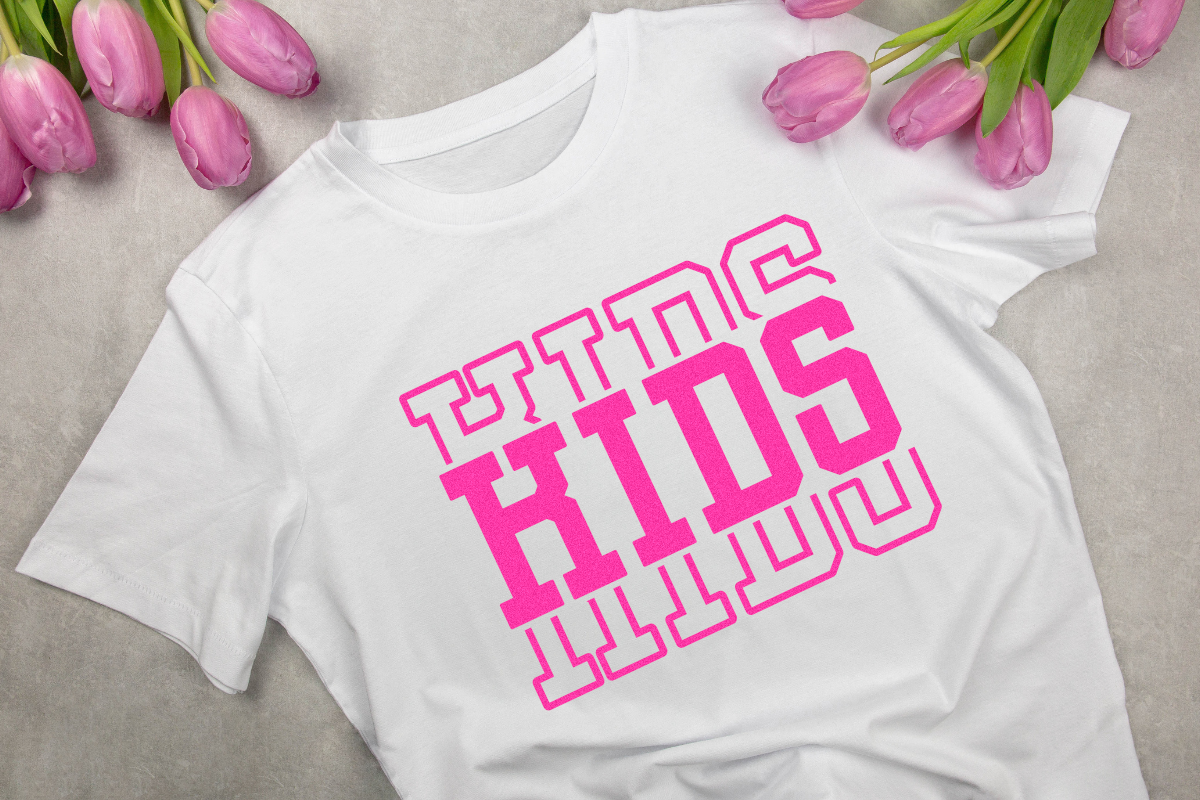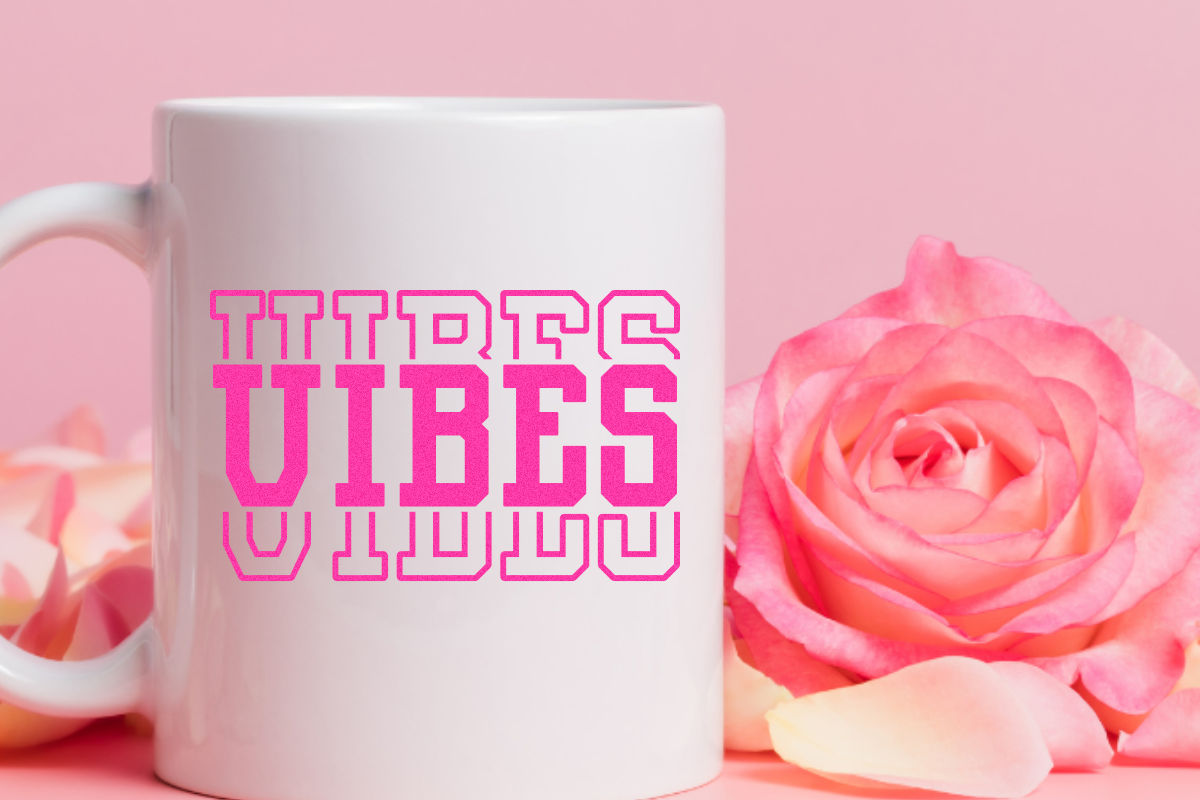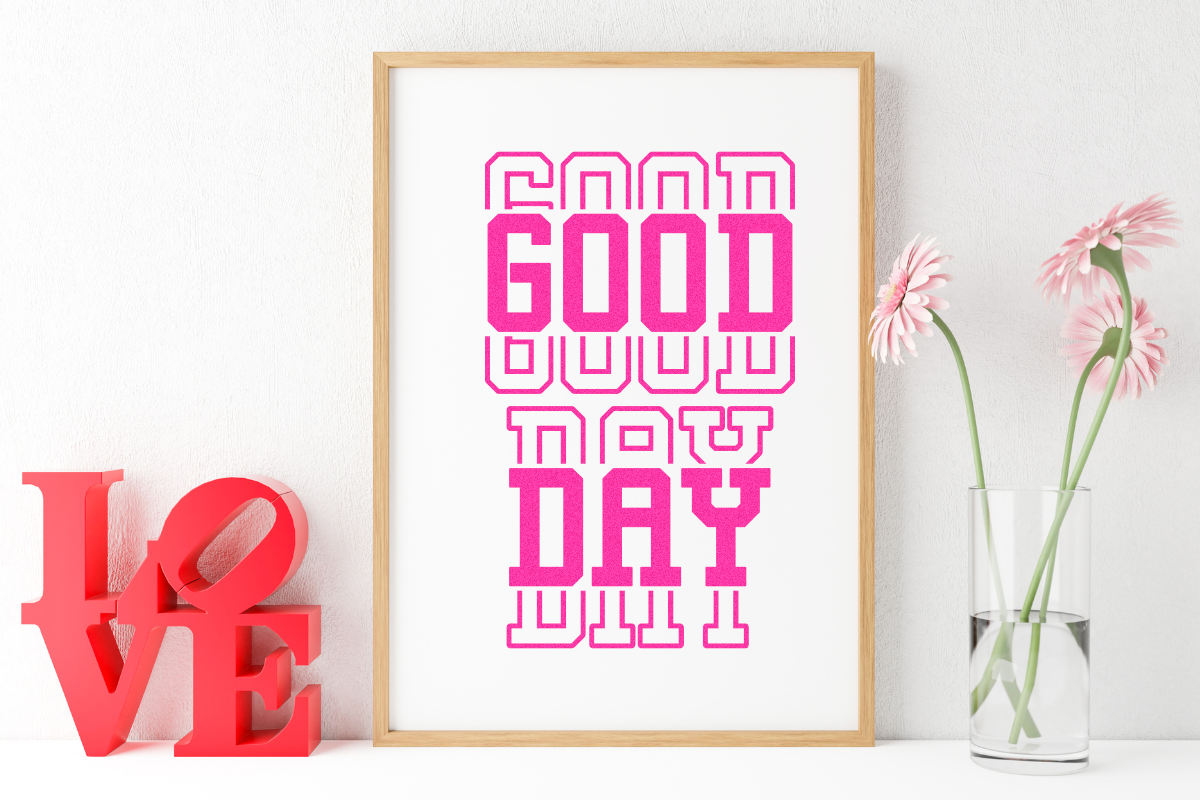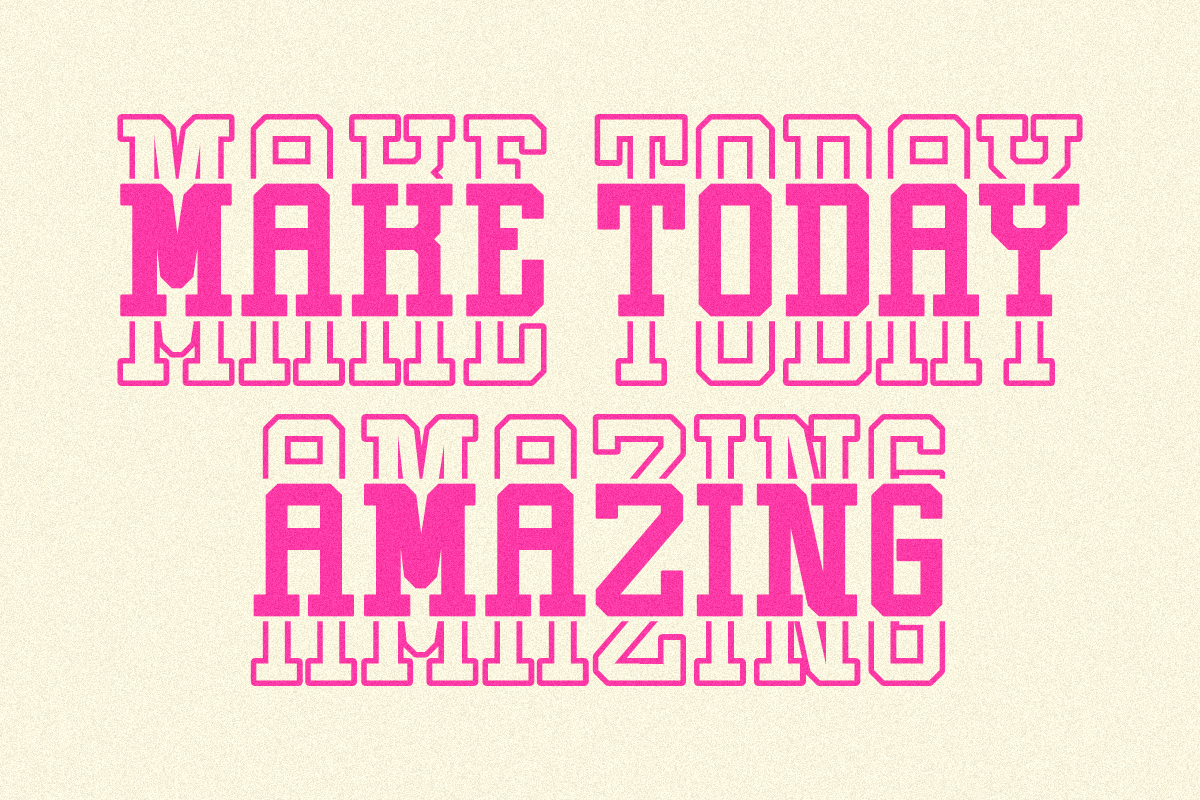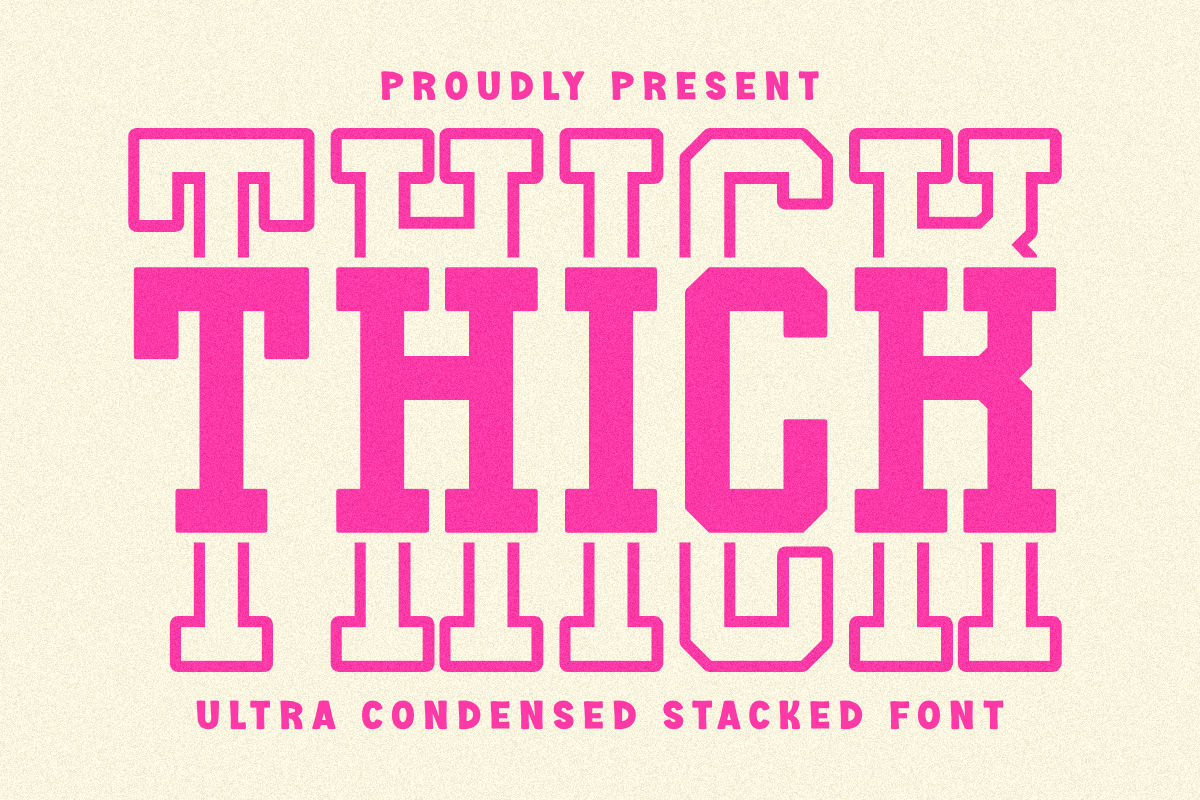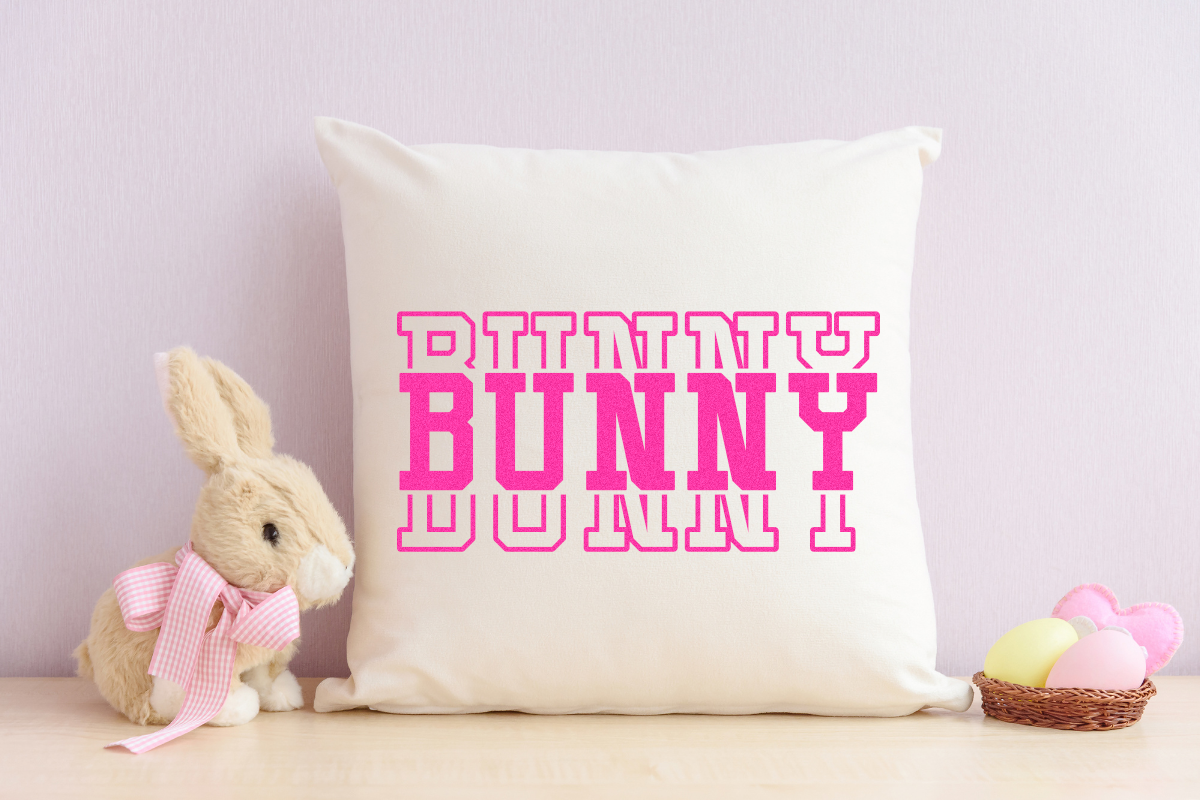
Thick Stacked - Display Typeface
Thick Stacked Font is an ultra-condensed display typeface engineered for maximum impact. Featuring a bold sans-serif style inspired by athletic and college/varsity sports fonts, this typeface is perfect for T-shirt design, logo design, and striking poster headlines. Its unique layered stacked font design includes both a solid and a matching outline font, allowing you to easily create strong, modern 3D display typography effects. Grab this font for all your print on demand (POD) projects and attention-grabbing headlines.